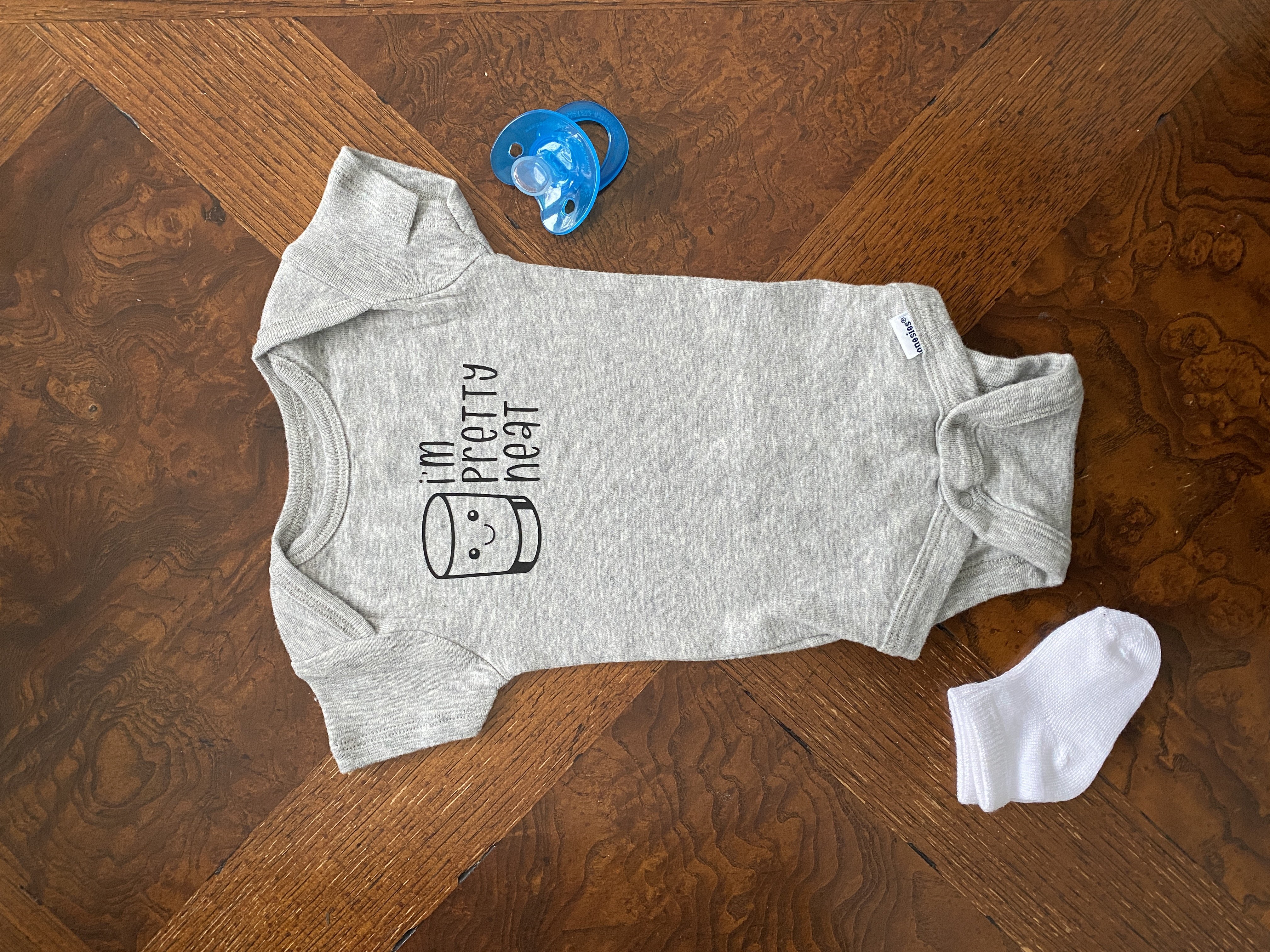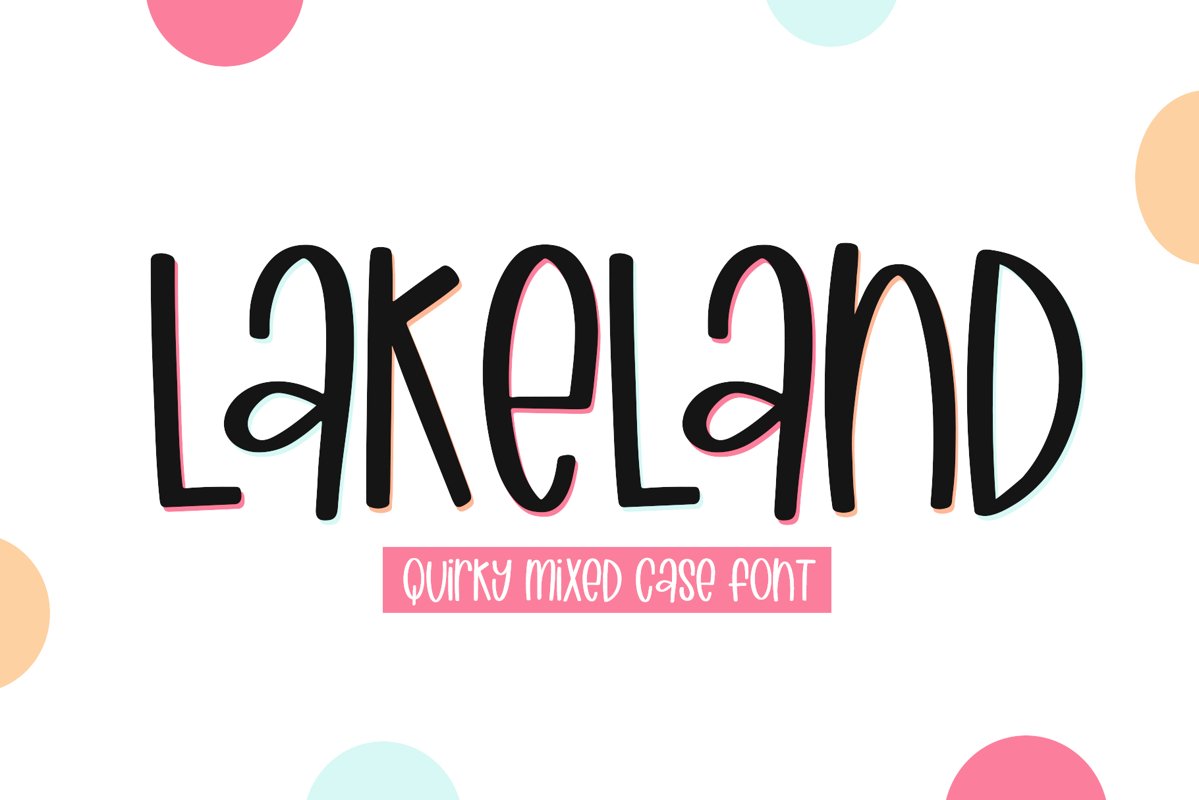
Lakeland is a quirky, mix-cased font!
This font is perfect for quotes, shirt designs, websites, branding, children's designs, svg designs, blogs, logos, invitations and more!
Lakeland